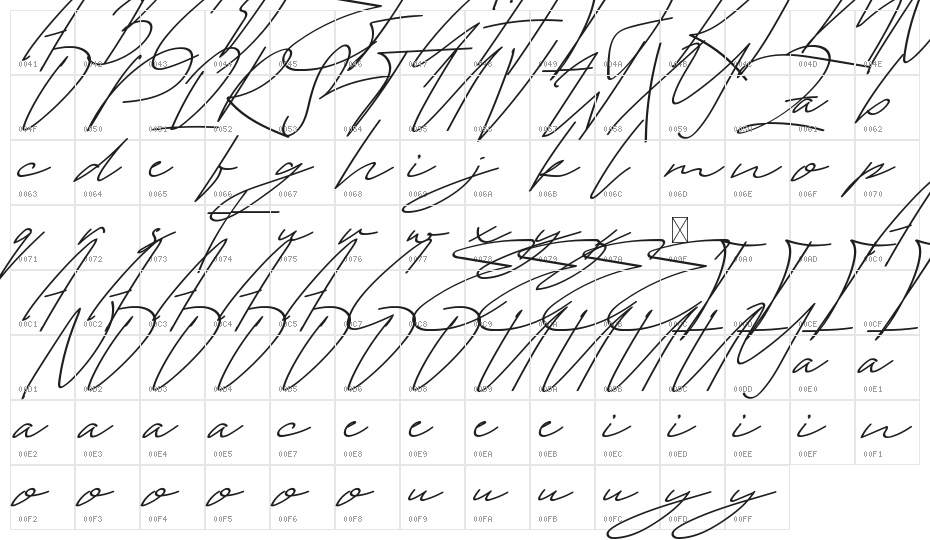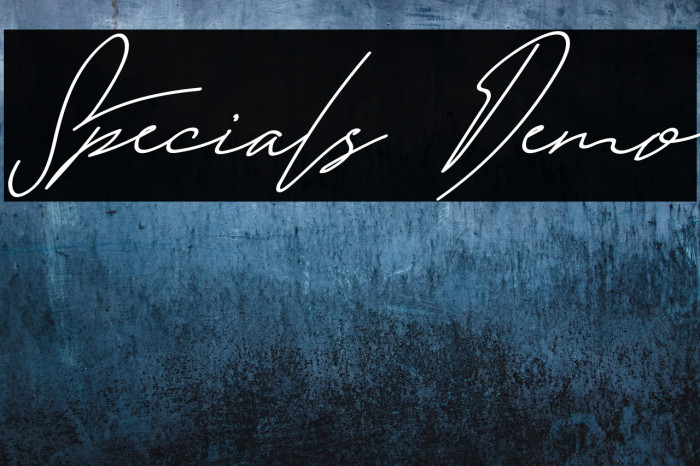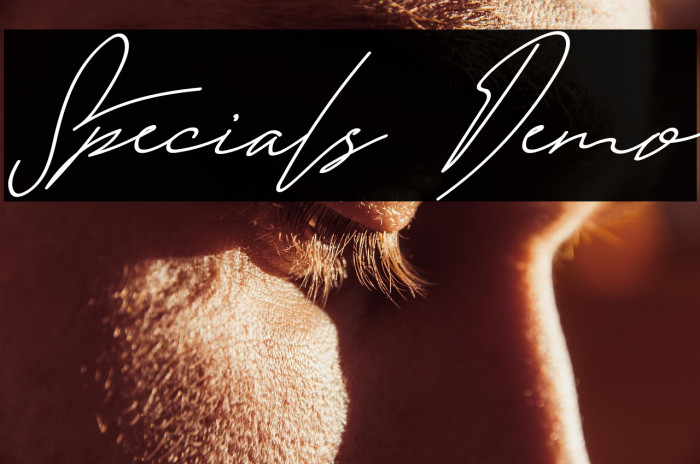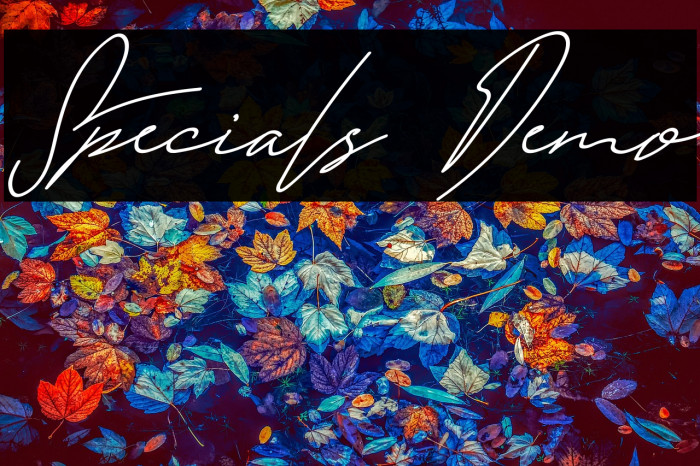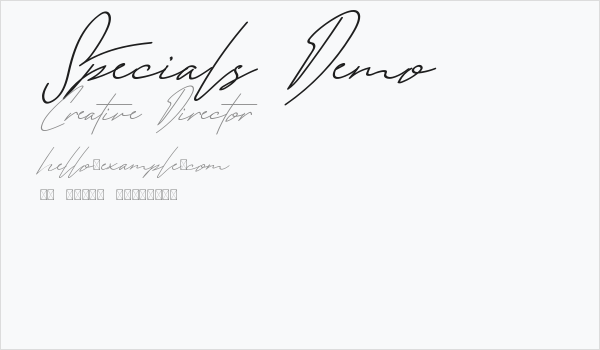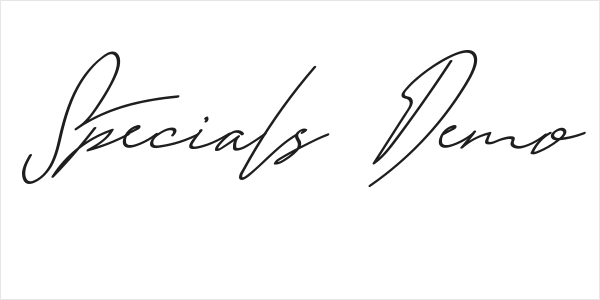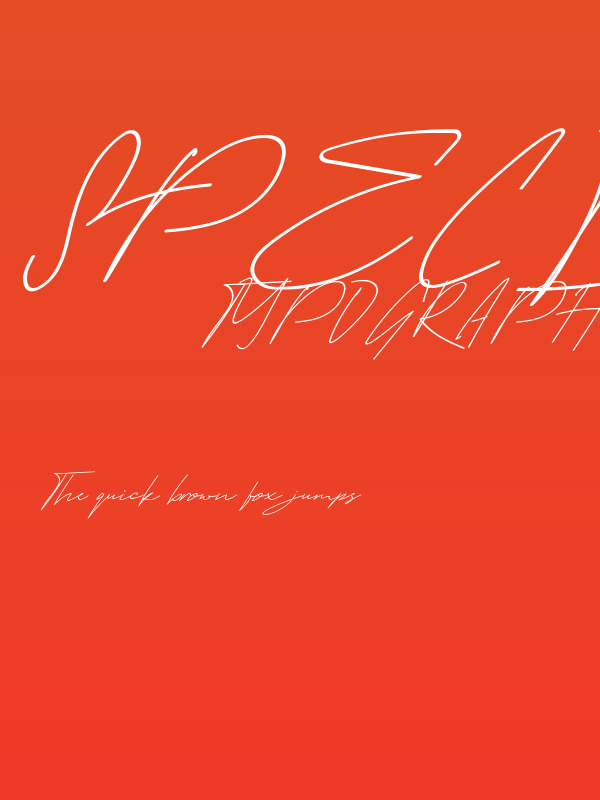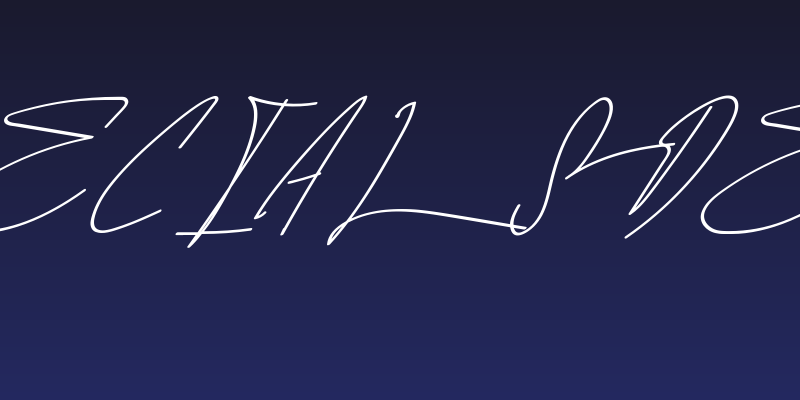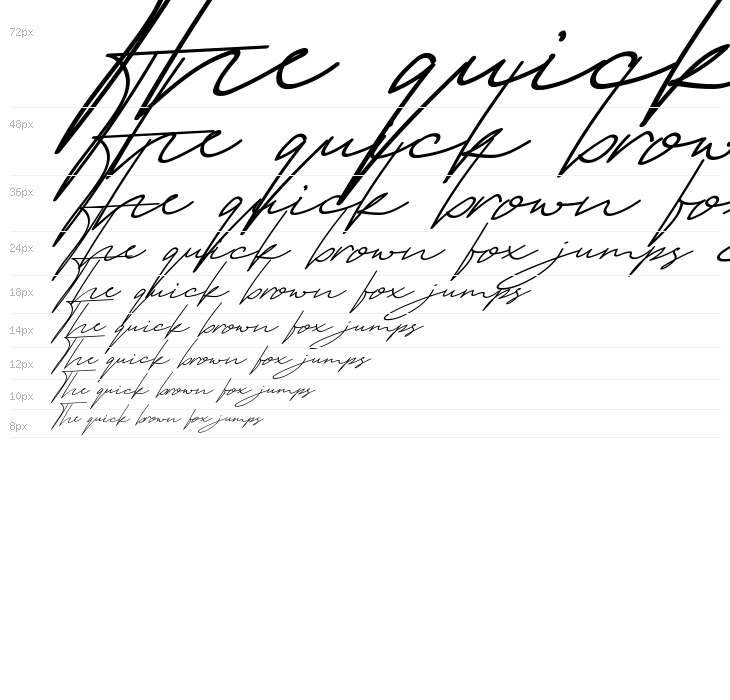
Specials Demo Font
Specials Demo Description
A highly stylized, loose handwritten script with thin, flowing lines and irregular letterforms, mimicking fast, expressive penmanship. The characters are elongated and connected, with noticeable slant and varying stroke thickness.
| Overall Style | Decorative, Artistic, Expressive |
| Use Case | Logos, Headlines, Invitations, Artistic projects |
| Proposed Projects | Greeting cards, personal branding, artistic posters, invitations, creative headers. |